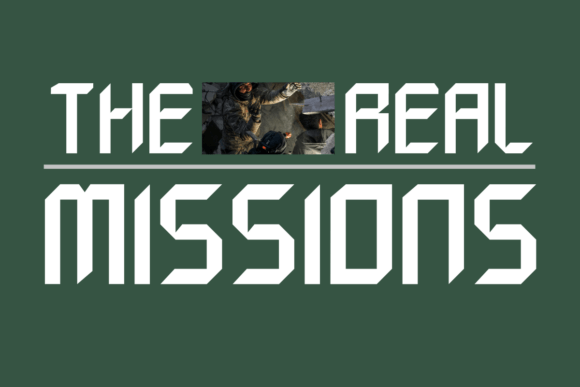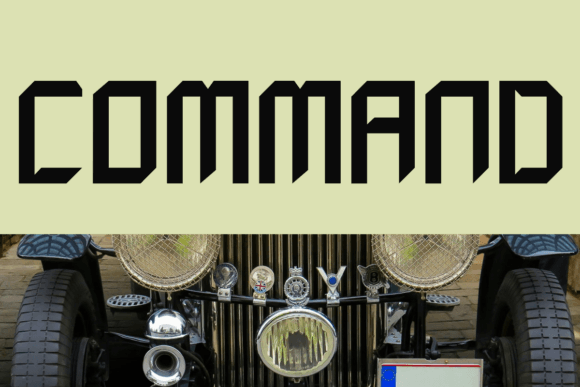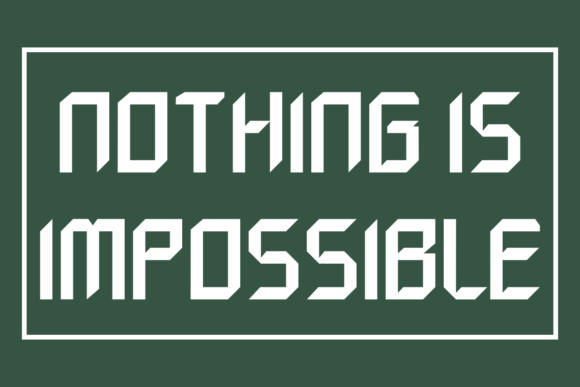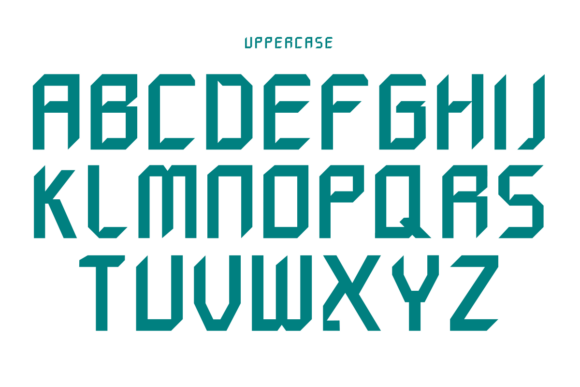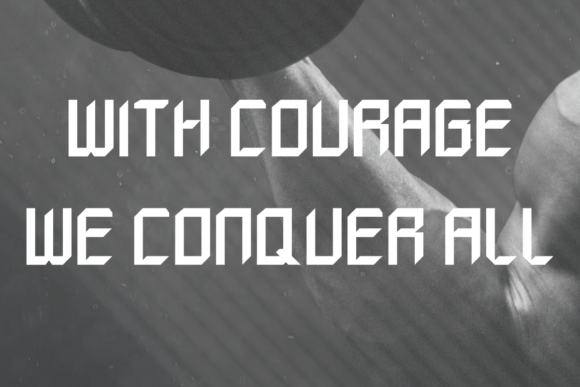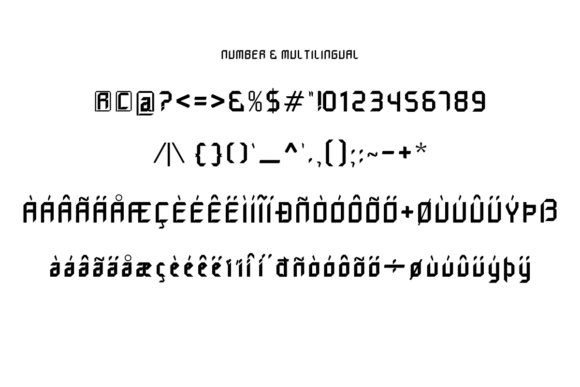
Introducing Foxcor Font: The Ultimate Choice for Bold and Authoritative Designs
In the world of typography, fonts play a crucial role in conveying the tone and personality of a design. For projects that demand a strong and commanding presence, a font that exudes discipline and strength is essential. This is where Foxcor Font comes into play. In this article, we’ll explore the features and benefits of Foxcor, a bold, military-inspired sans serif font that’s perfect for designers and crafters looking to create a powerful visual identity.
What is Foxcor Font?
Foxcor is a bold, military-inspired sans serif font that features strong lines and distinctive letterforms. Its sharp, structured design ensures readability while delivering a powerful, rugged look. With its bold character, Foxcor is the ideal choice for military, industrial, or action-oriented projects, providing a tough yet refined visual identity for your designs.
Key Features of Foxcor Font
- Bold and Strong Lines: Foxcor’s bold lines and distinctive letterforms make it perfect for designs that require a commanding presence.
- Military-Inspired: The font’s military-inspired design gives it a unique and authoritative look, ideal for military, industrial, or action-oriented projects.
- Sans Serif: Foxcor’s sans serif design ensures a clean and modern look, making it perfect for logos, posters, branding, and other designs.
- High Readability: Despite its bold design, Foxcor ensures high readability, making it perfect for designs that require a clear and concise message.
Perfect for Military, Industrial, and Action-Oriented Projects
Foxcor Font is specifically designed for projects that demand a strong and authoritative presence. Its military-inspired design makes it perfect for:
- Military and Defense: Foxcor’s bold and strong design makes it ideal for military and defense-related projects, such as logos, posters, and branding.
- Industrial and Manufacturing: The font’s industrial look and feel make it perfect for industrial and manufacturing-related projects, such as equipment manuals, safety signs, and company branding.
- Action-Oriented and Sports: Foxcor’s bold and dynamic design makes it perfect for action-oriented and sports-related projects, such as logos, posters, and branding.
Benefits of Using Foxcor Font
Using Foxcor Font in your designs offers several benefits, including:
- Instant Recognition: Foxcor’s bold and distinctive design ensures instant recognition, making it perfect for logos and branding.
- Authority and Strength: The font’s military-inspired design conveys authority and strength, making it perfect for projects that require a commanding presence.
- Versatility: Foxcor can be used in a variety of design projects, from logos and posters to branding and packaging.
Tips for Using Foxcor Font Effectively
To get the most out of Foxcor Font, here are some tips for using it effectively:
- Use it Sparingly: Due to its bold design, Foxcor is best used sparingly to avoid overwhelming the viewer.
- Pair it with Contrasting Fonts: Pair Foxcor with contrasting fonts to create visual interest and hierarchy in your design.
- Experiment with Colors: Foxcor looks great in bold colors, so don’t be afraid to experiment with different colors to create a unique look.
In conclusion, Foxcor Font is a bold, military-inspired sans serif font that’s perfect for designers and crafters looking to create a powerful visual identity. With its strong lines, distinctive letterforms, and high readability, Foxcor is ideal for military, industrial, or action-oriented projects. By using Foxcor Font in your designs, you can convey authority, strength, and discipline, making it perfect for logos, posters, branding, and other designs that demand a commanding presence.